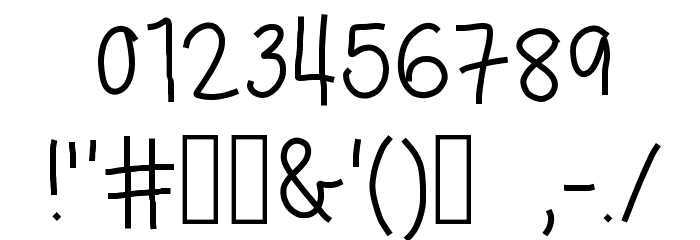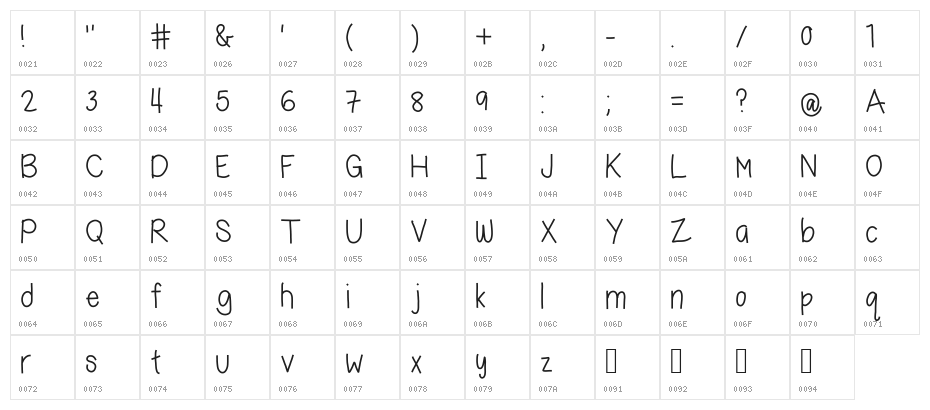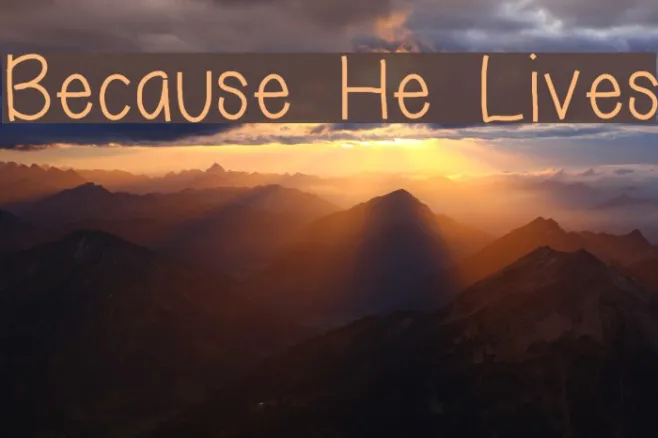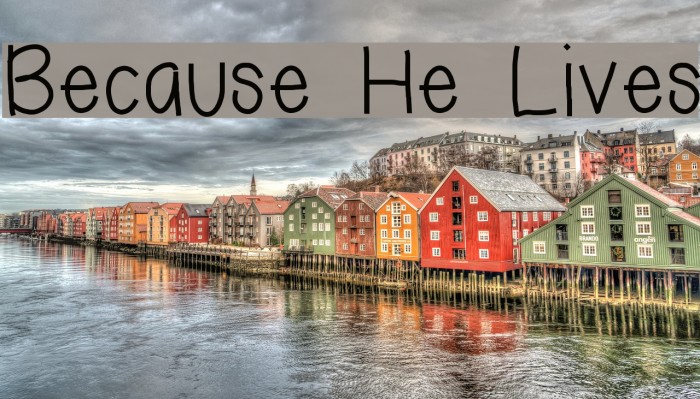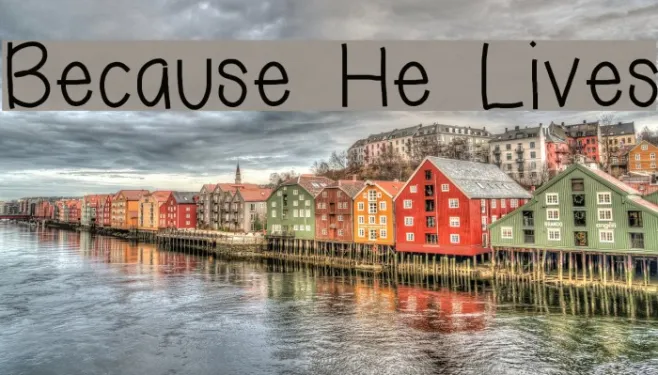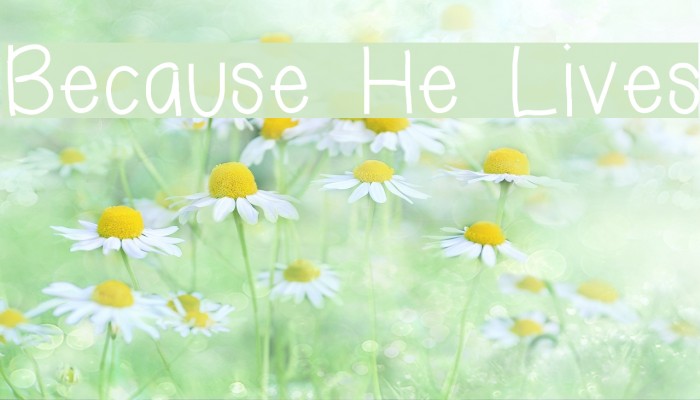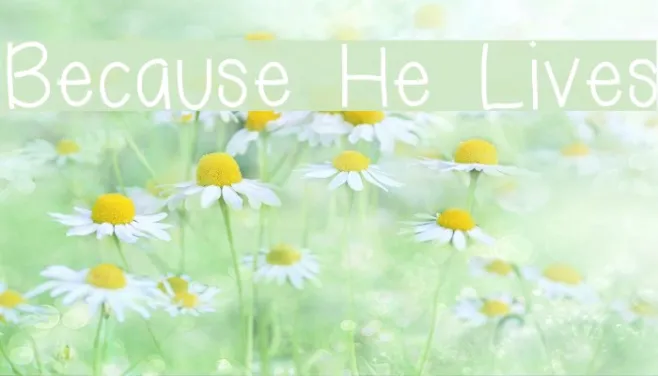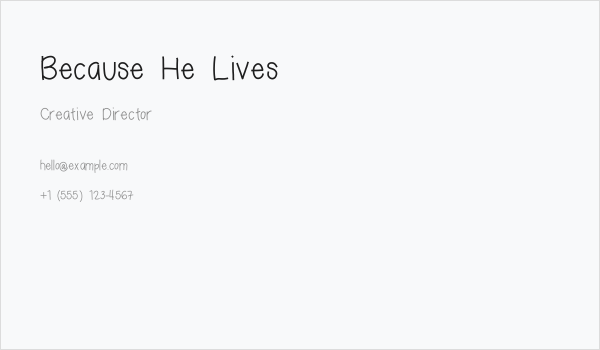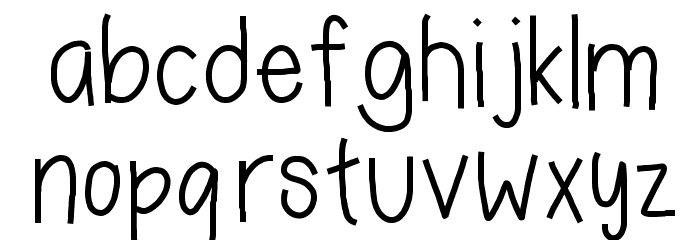
Because He Lives Font
Because He Lives Description
This font features a playful and informal handwritten style with a casual, friendly appearance. The characters are slightly irregular, giving them a personal touch that mimics natural handwriting. The strokes are consistent in width, providing a uniform look across all letters and numbers. The uppercase letters are bold and prominent, while the lowercase letters maintain a balanced and approachable feel. The numerals are clear and easy to read, matching the overall style of the alphabet. Special characters are included, maintaining the same playful and approachable design. This font is versatile and can be used in various creative projects.
| Proposed Projects | Ideal for greeting cards, children's books, casual invitations, and personal branding. |